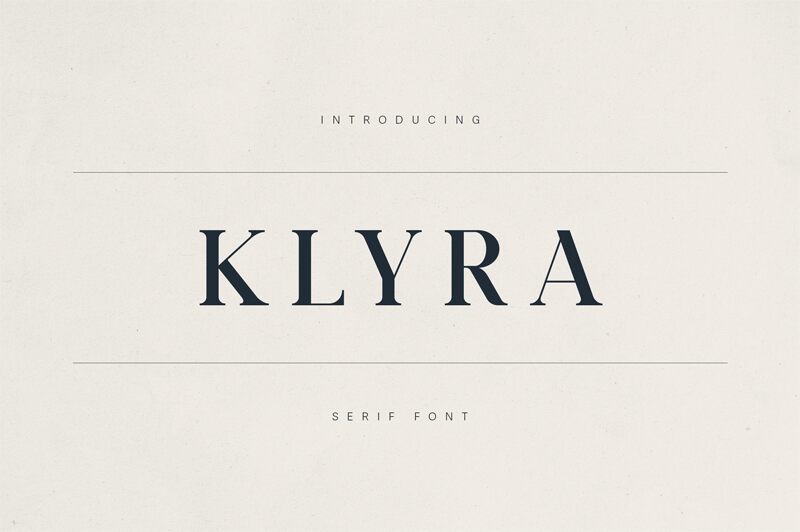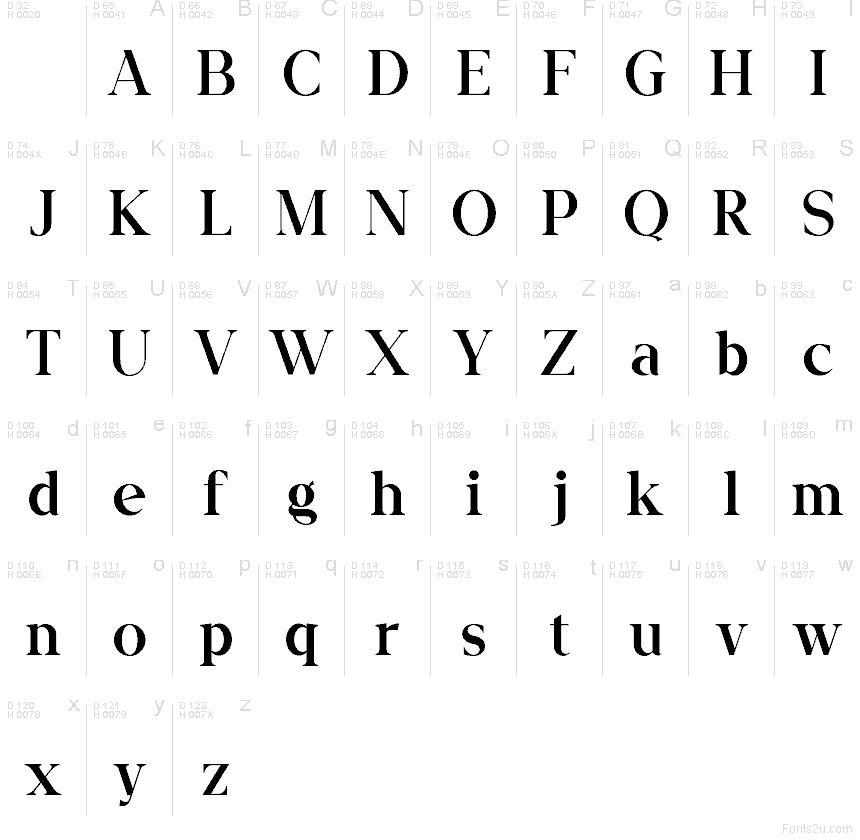
Klyra Demo Regular
Klyra font by VPcreativeshop is a free serif typeface with a striking, sculpted presence. Thick, inky strokes meet refined, sliced details, while the graceful sweep of the “y” hints at calligraphic movement. The overall feel is luxurious yet modern—elegant enough for prestige branding, but with enough bite to stand out in a crowded layout.
Using Klyra, bold titles and short phrases feel rich, theatrical, and memorable, making this free font a natural fit for fashion branding, magazine covers, beauty packaging, invitations, posters, and homepage hero text. It shines when set large, where the dramatic shapes can breathe; pair it with a clean geometric sans for body copy to create a polished, editorial look.